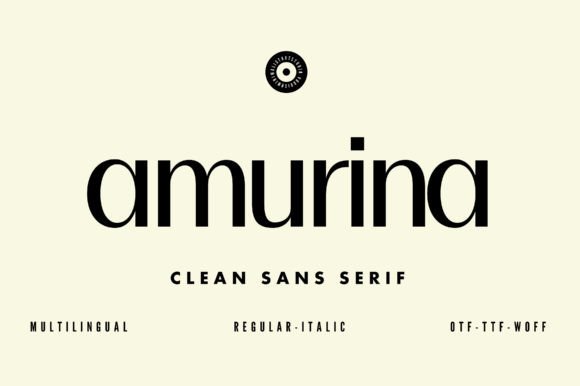
Journey into the realm of typography with "Amurina", the sans serif font that embodies grace and simplicity. Its meticulously crafted characters exude a minimalist charm, lending an air of sophistication to every design endeavor. Experience the transformative power of "Amurina" and elevate your creative vision to new heights.
Step into a world where clarity and creativity converge. "Amurina" is a font that dances across your screen, captivating the attention of all who behold it. Its crisp lines and subtle curves create a visual symphony, ensuring your designs leave a lasting impression.
"Amurina" is not merely a font; it's an artistic expression that brings life to your digital canvas. Its versatility knows no bounds, effortlessly adapting to a myriad of projects. From striking headlines that command attention to sleek body text that entices readers, "Amurina" is your trusted companion in the world of design.
With its minimalist aesthetic and contemporary appeal, "Amurina" is the perfect font for those seeking a timeless and captivating typographic solution. Whether you're crafting eye-catching logos, designing elegant invitations, or creating dynamic websites, "Amurina" transforms your words into works of art.
Embrace the elegance and modernity of "Amurina" today. Discover the limitless possibilities of this sans serif masterpiece and elevate your design projects to unparalleled heights. Let "Amurina" ignite your creativity and unlock a world of typographic wonders.